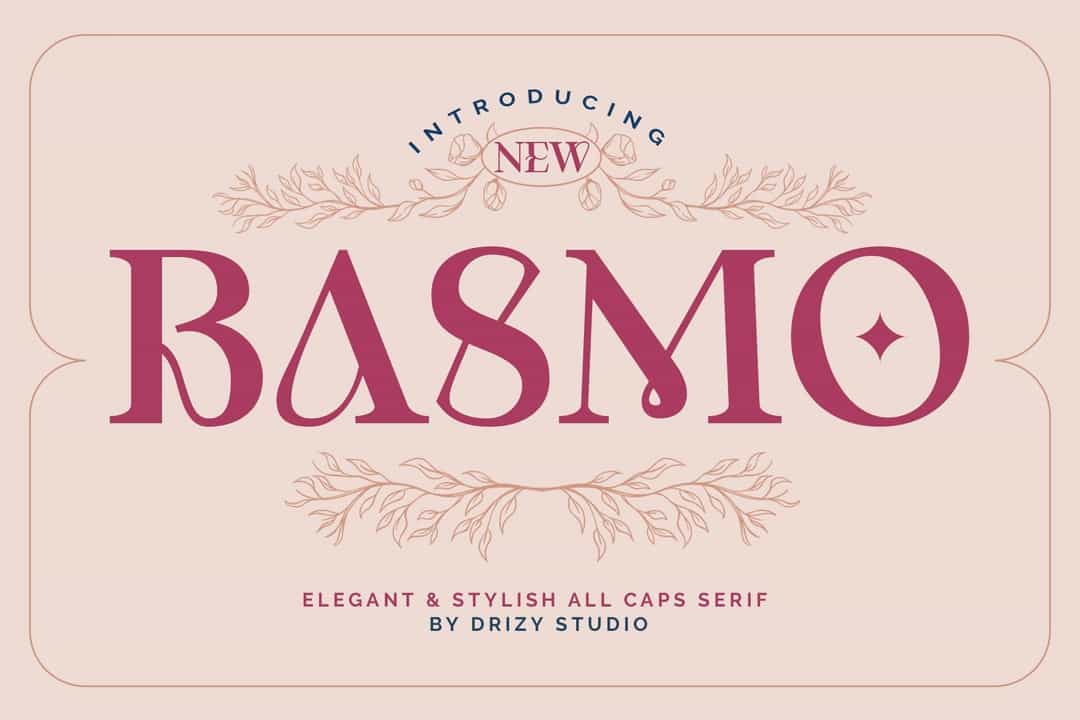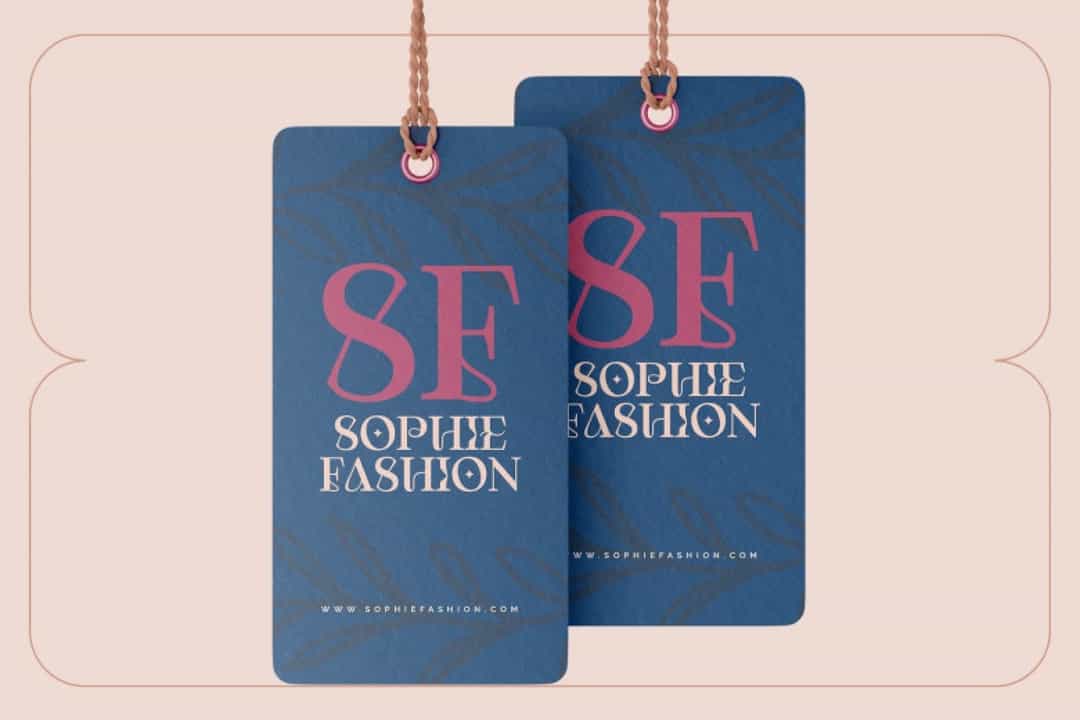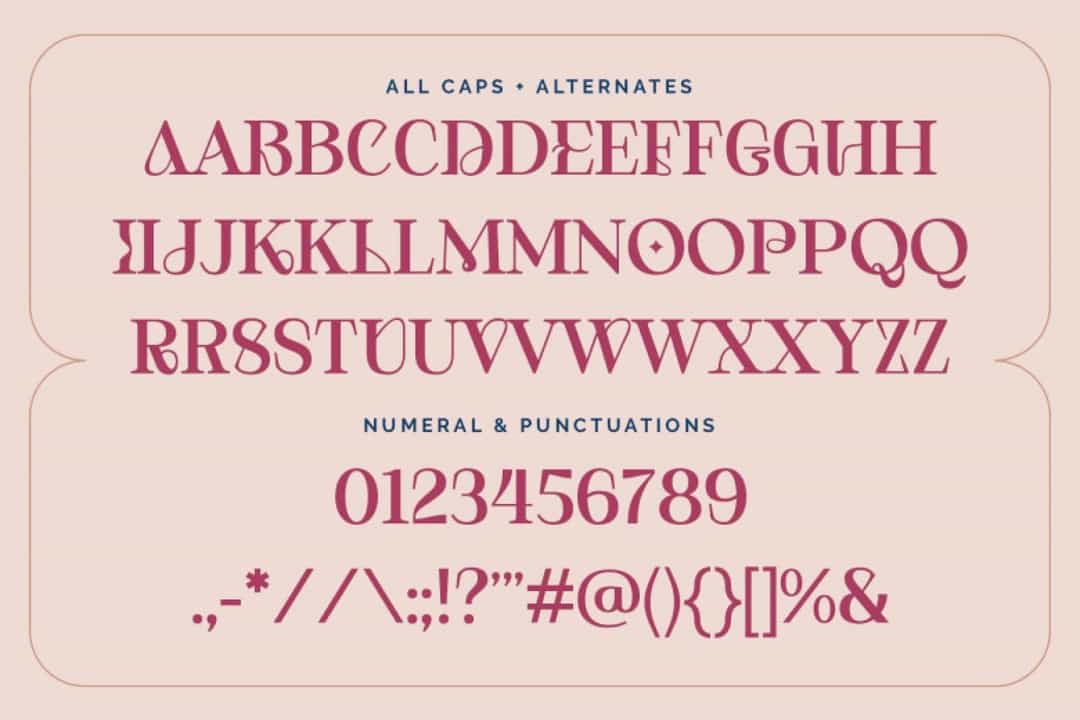
Basmois is an elegant and sophisticated serif font, boasting its sophisticated elegance in both design and execution. Perfect for logos, branding projects design, clothing branding packaging magazines or as trendy text overlay on every background picture!